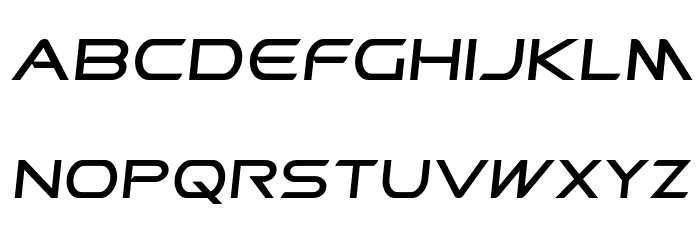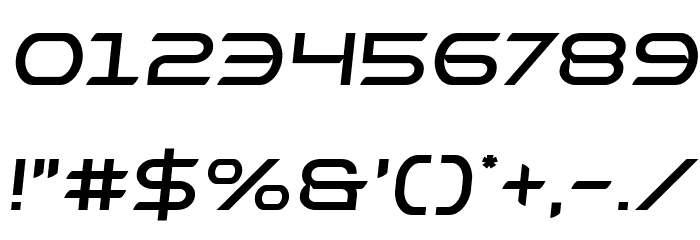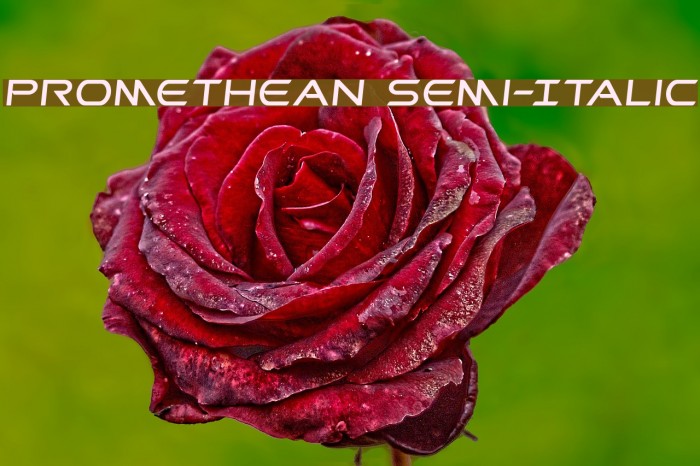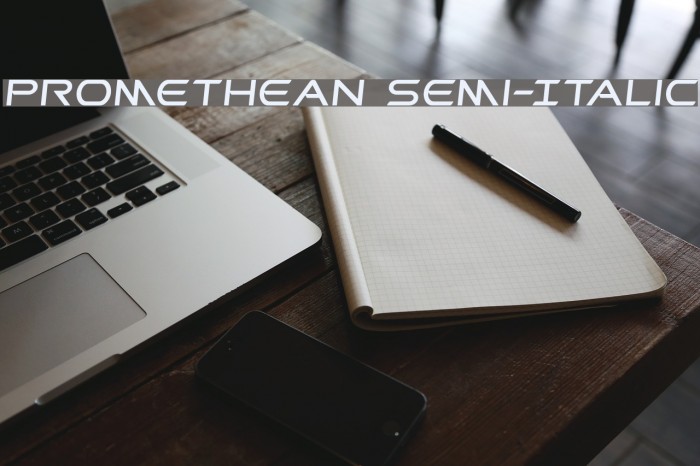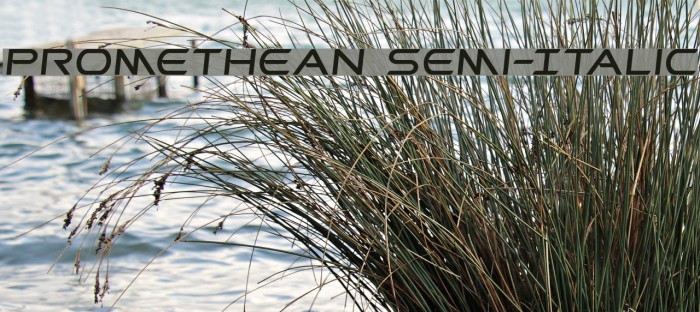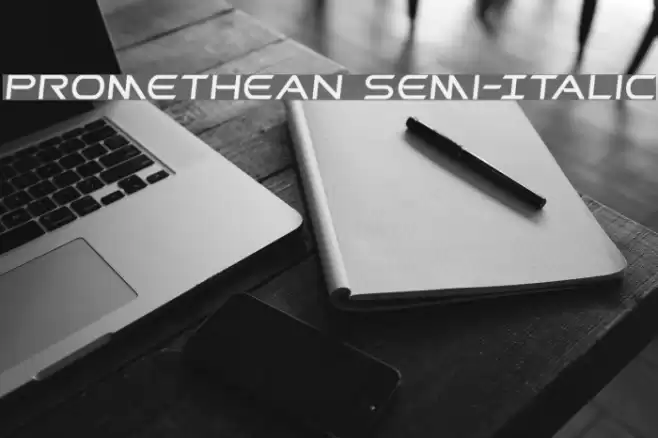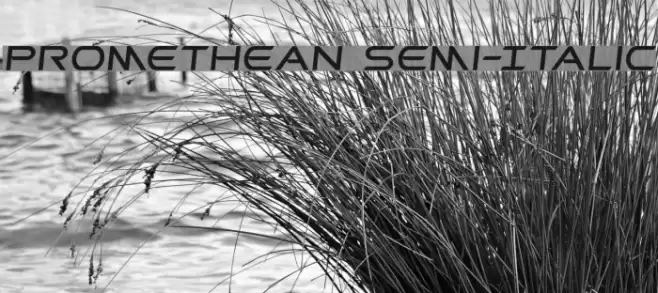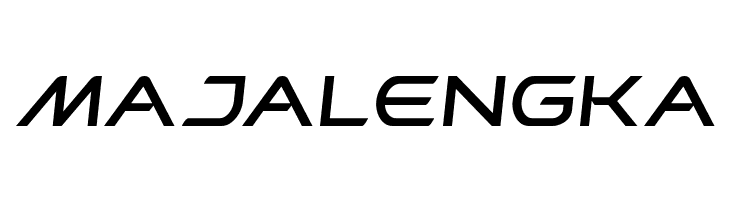
Promethean Semi-Italic Font
This font features a sleek, modern design with a semi-italic slant, giving it a dynamic and forward-moving appearance. The characters are crafted with precision, showcasing a blend of geometric shapes and smooth curves. The uppercase and lowercase letters maintain a consistent style, with a slight tilt that adds a sense of motion. The numerals are clear and legible, complementing the overall aesthetic. Special characters are included, maintaining the same stylistic integrity. This font is ideal for projects that require a contemporary and energetic feel.
A sleek, semi-italic font with a modern, dynamic design.
- Proposed Projects: Ideal for branding, advertising, and digital media projects that require a modern and energetic look.
- Use Case: Headlines, Logos, Digital Media